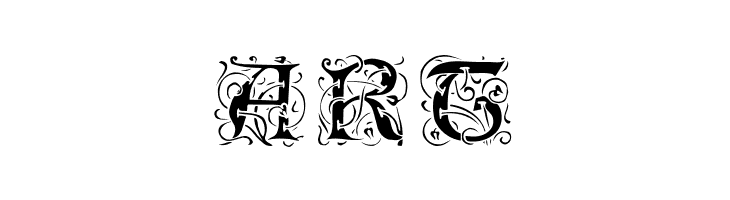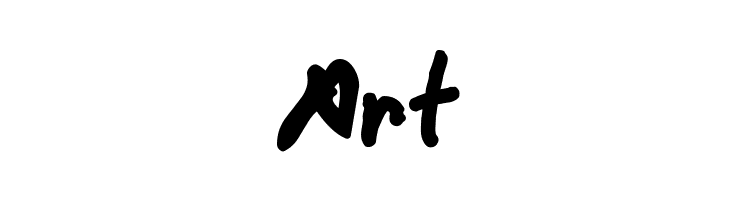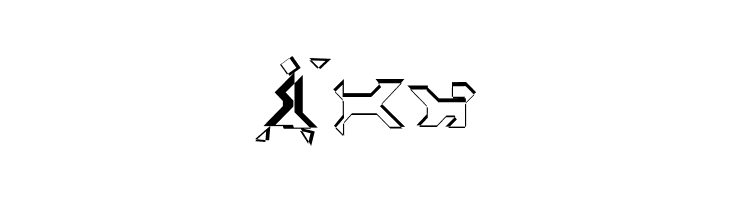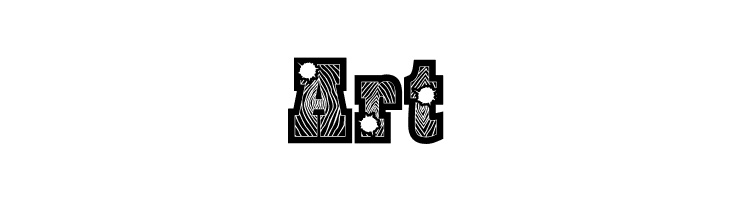
A bold, jagged font with a wild, energetic appearance.
An ornate, decorative font with intricate floral embellishments on uppercase letters.
A bold, handwritten font with an energetic and playful style.
A bold, handwritten-style font with a playful and dynamic appearance.
A bold, angular font inspired by ancient Roman inscriptions.
A bold and abstract collection of graphic symbols with a playful yet sophisticated style.
Tangram-inspired abstract characters with geometric shapes.
A bold, block-style font reminiscent of traditional collegiate lettering.
A bold, decorative font with intricate patterns and a rugged, adventurous vibe.
A bold, decorative font with intricate line patterns and a striking visual style.